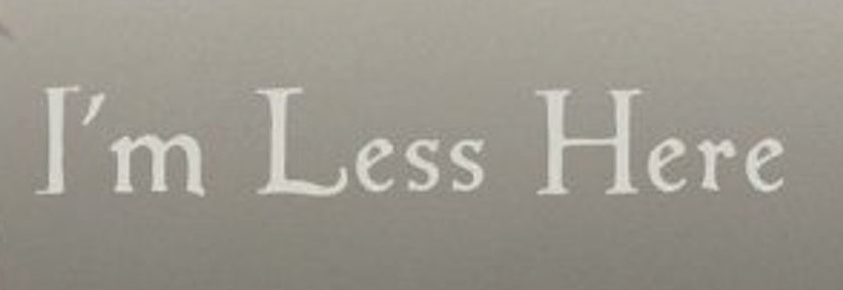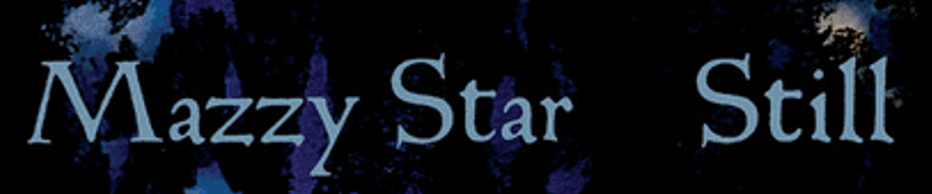
Mazzy Star cover font identification
Can anyone identify this font from the Mazzy Star album covers? It looks like Jenson but not exactly.
Thank you. Yeah, it's a tough one. I think it's a combination of a few different fonts.
Yes, parts of this look correct. That L though is unique. You would think that would be easy to match but I have not found anything even close. Thanks